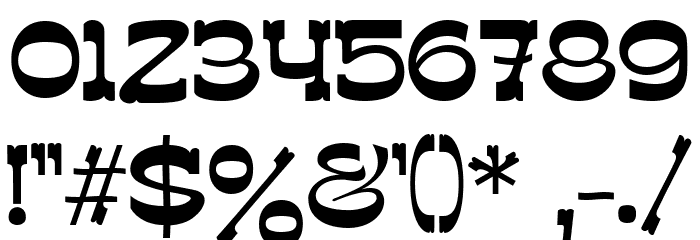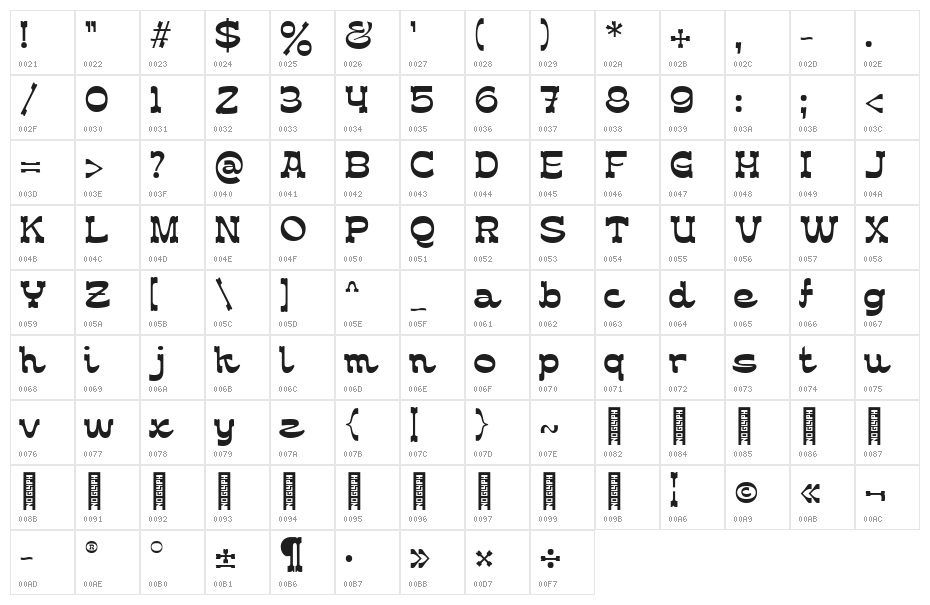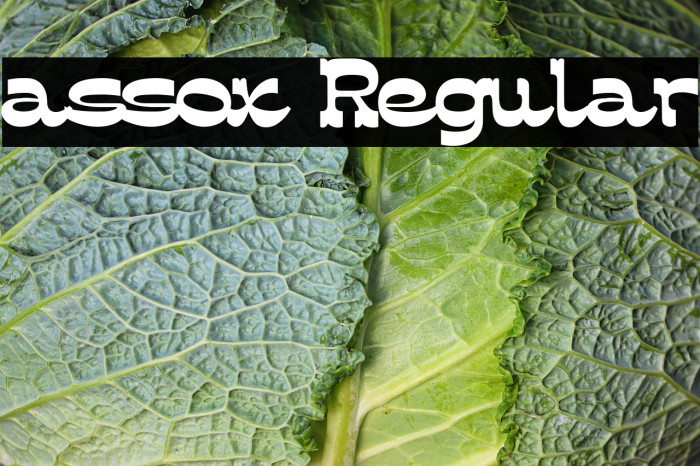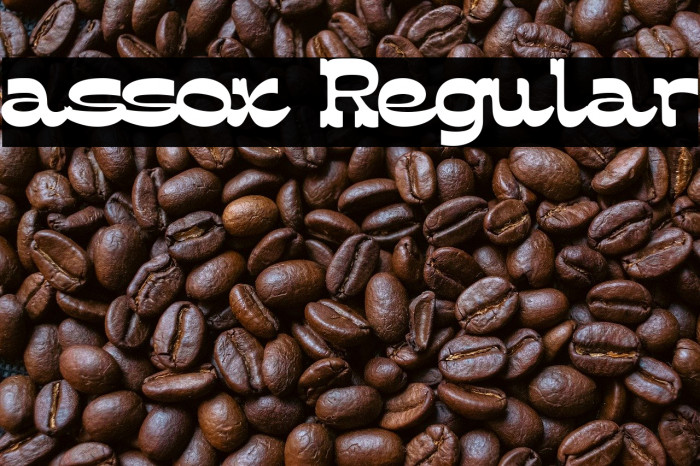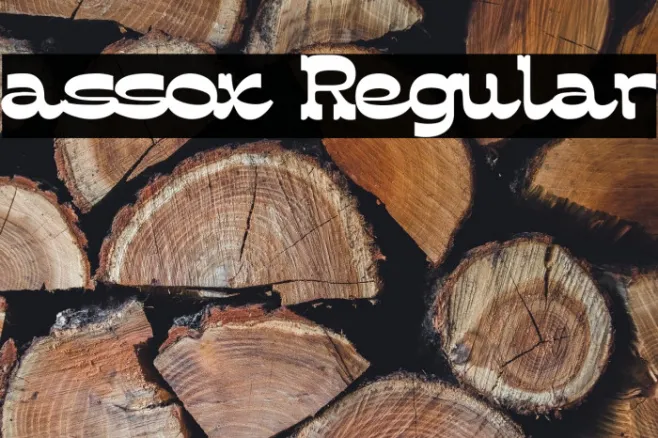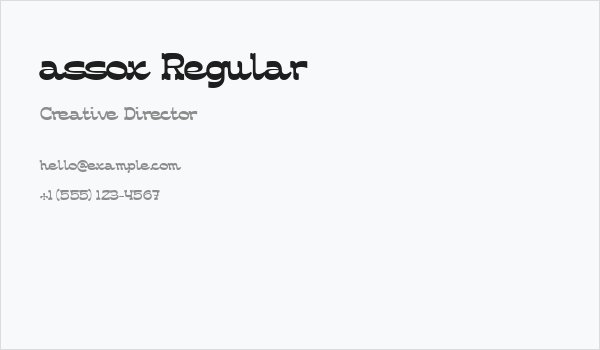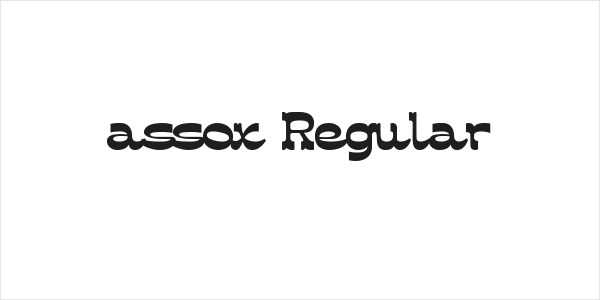
assox Regular Font
assox Regular Description
This font features a bold and playful design with a unique blend of geometric and organic shapes. The characters are wide and rounded, giving them a friendly and approachable appearance. The uppercase letters have a strong presence with their thick strokes and slightly curved edges, while the lowercase letters maintain a consistent style with a touch of whimsy. The numerals are equally bold, ensuring readability and impact. Special characters are creatively designed, adding to the font's overall charm. This font is perfect for projects that require a fun and engaging aesthetic.
| Overall Style | Playful, Modern |
| Proposed Projects | Ideal for children's books, playful branding, posters, and creative advertising. |